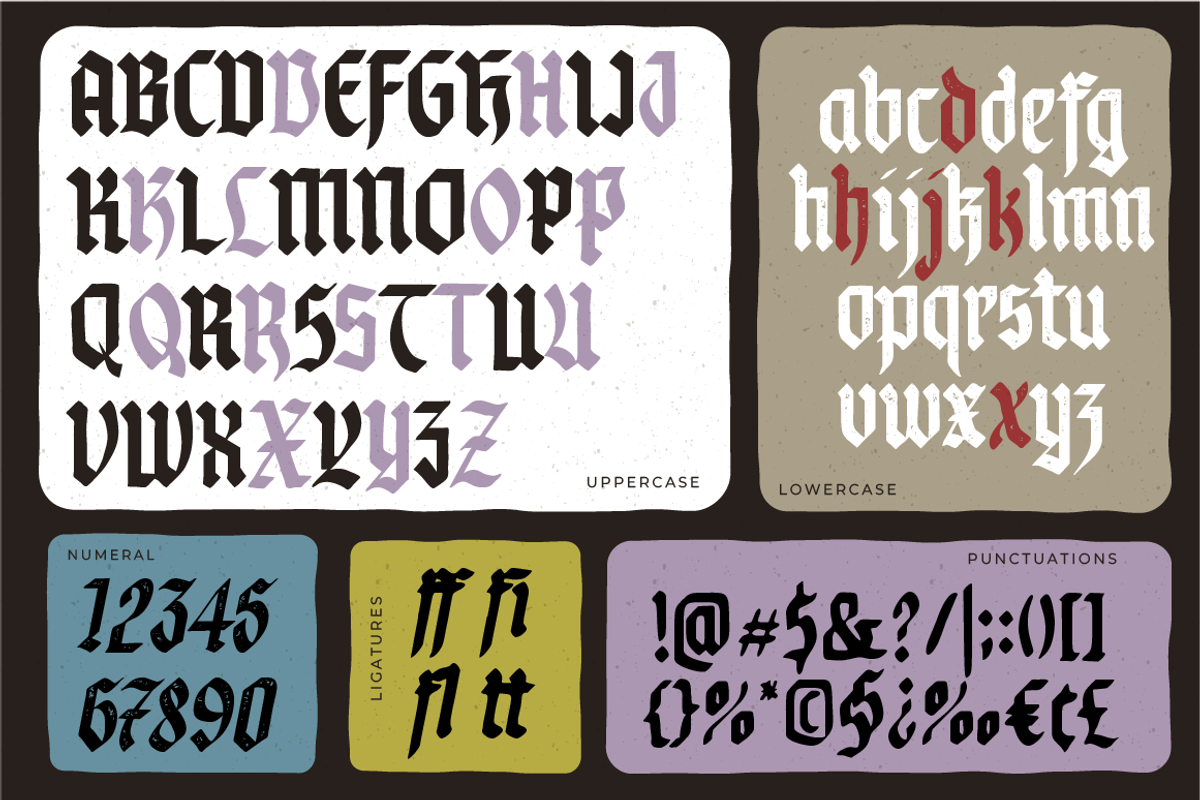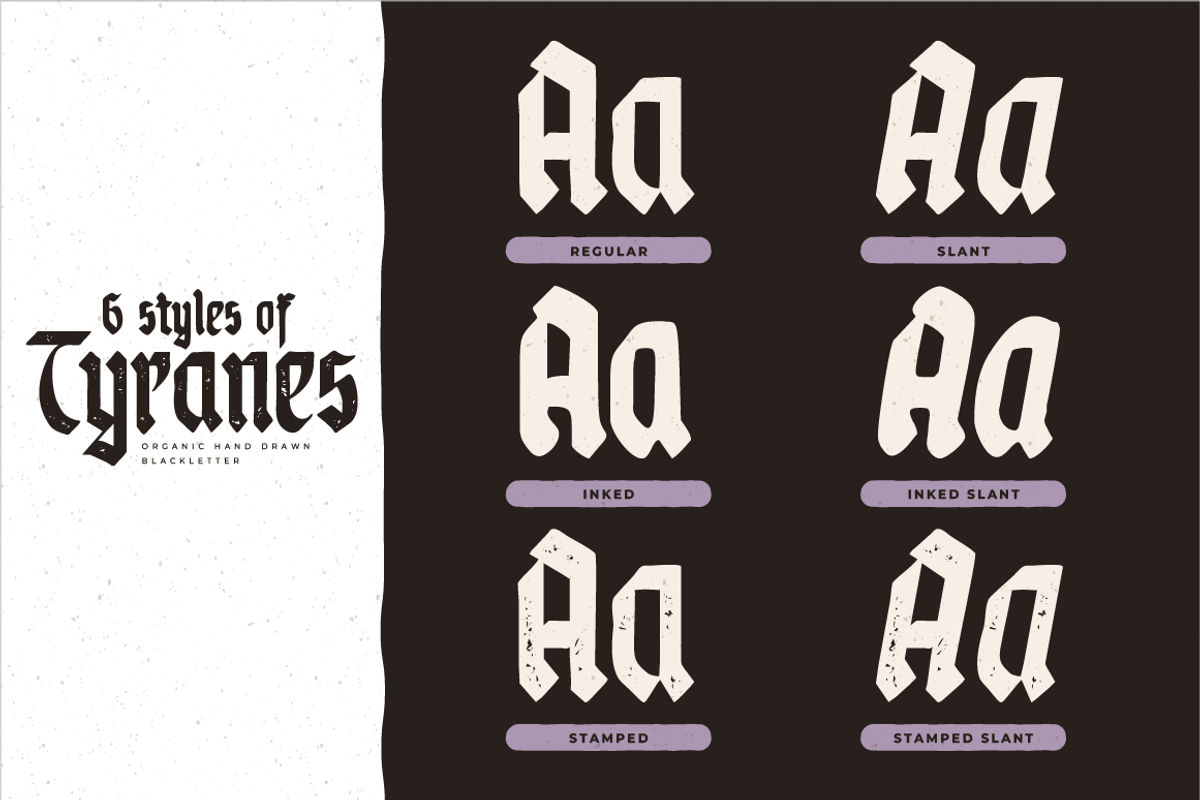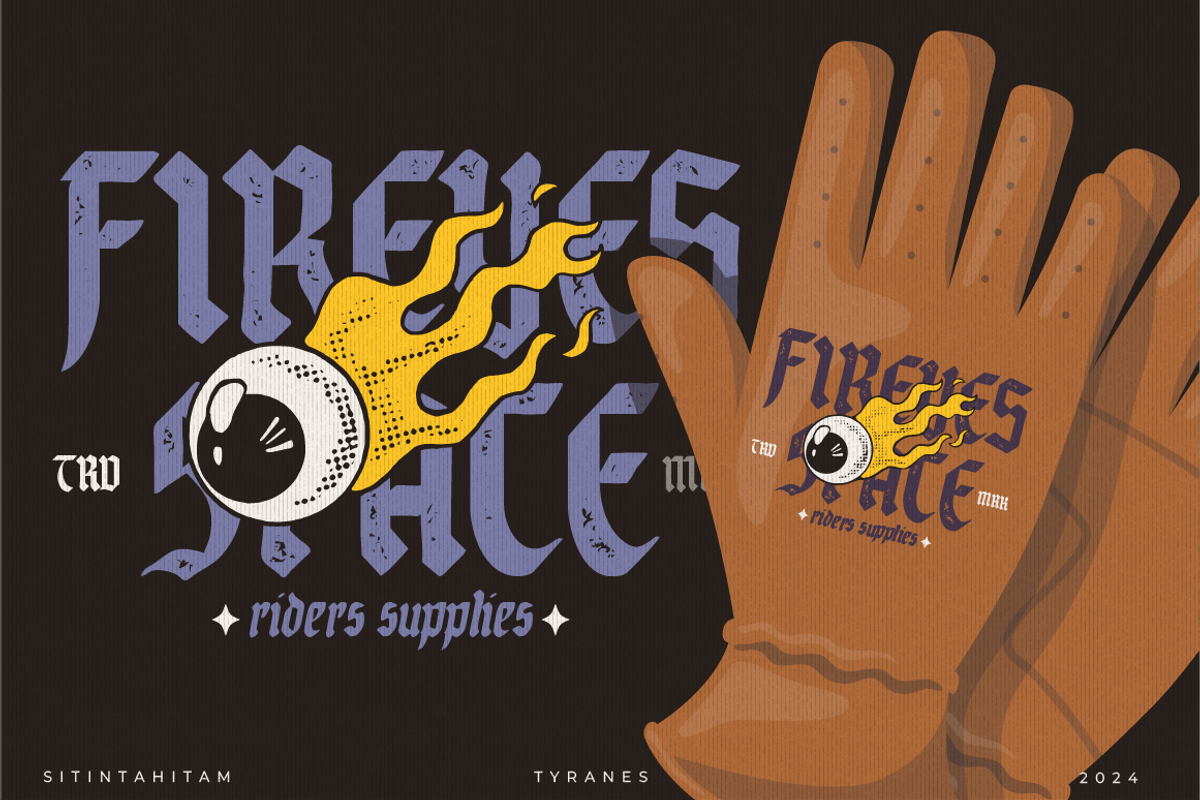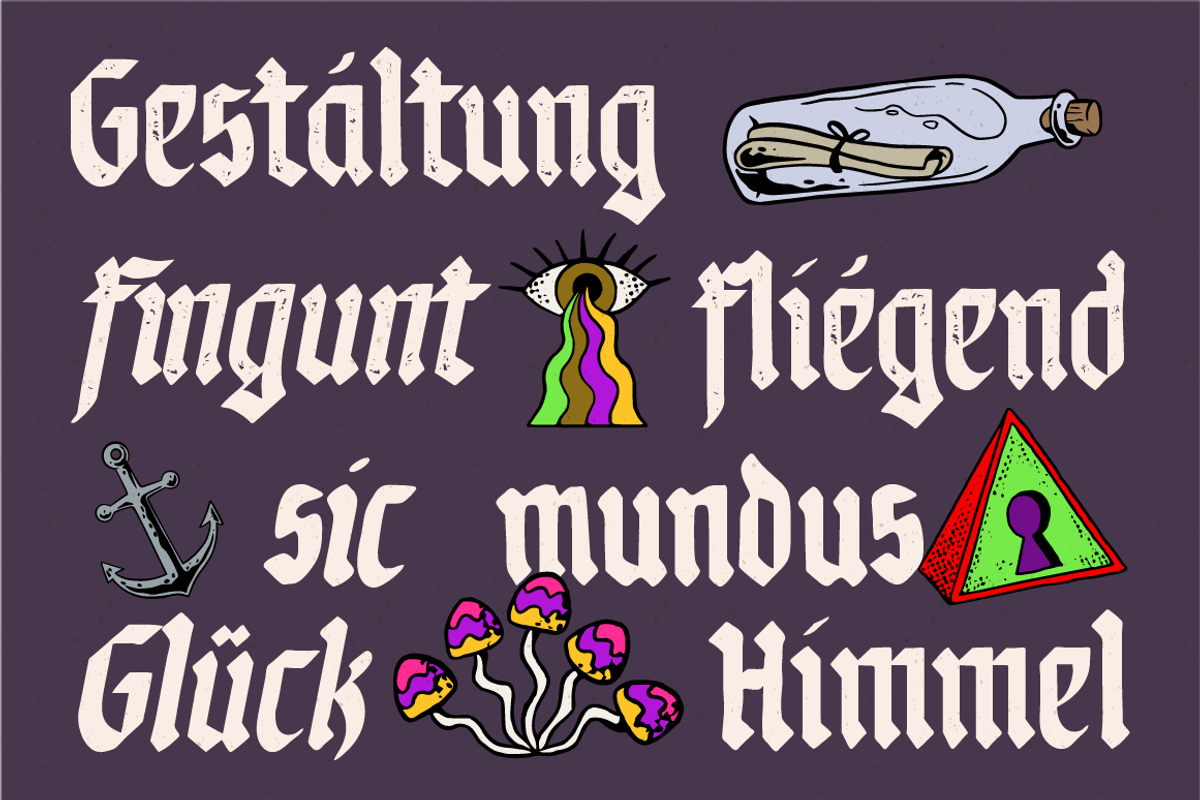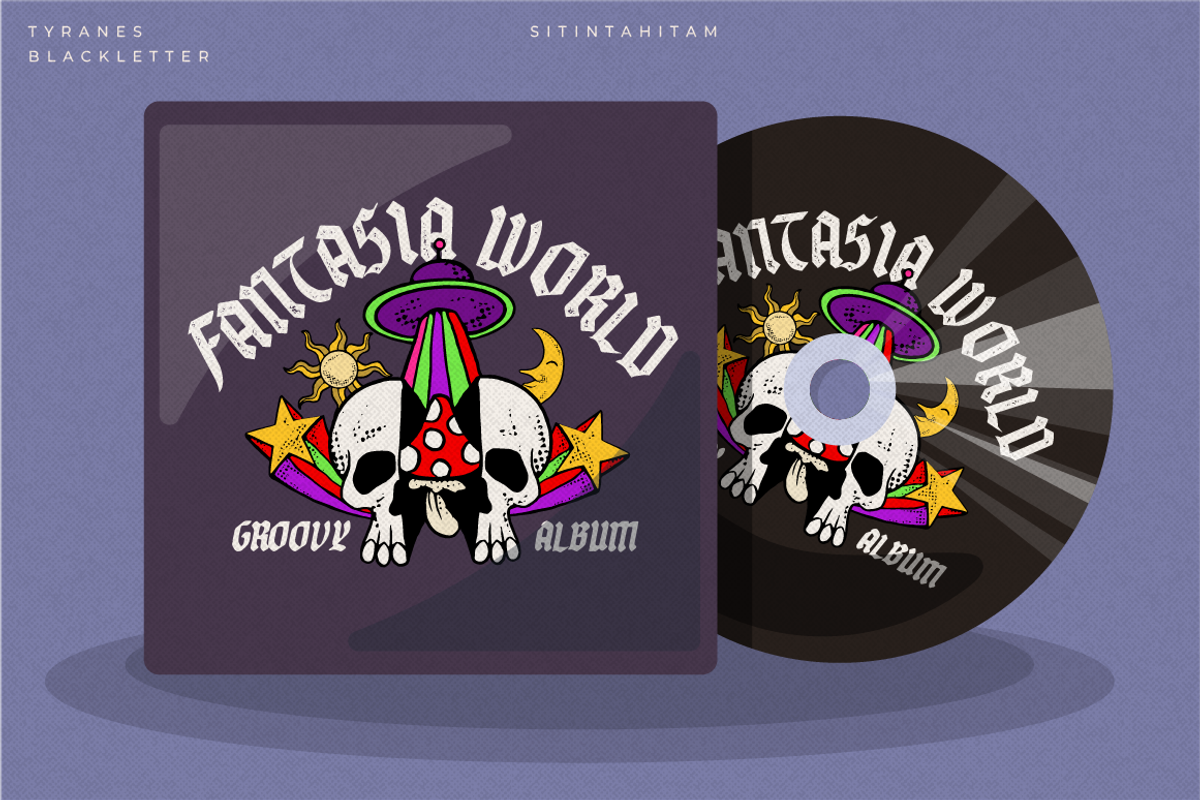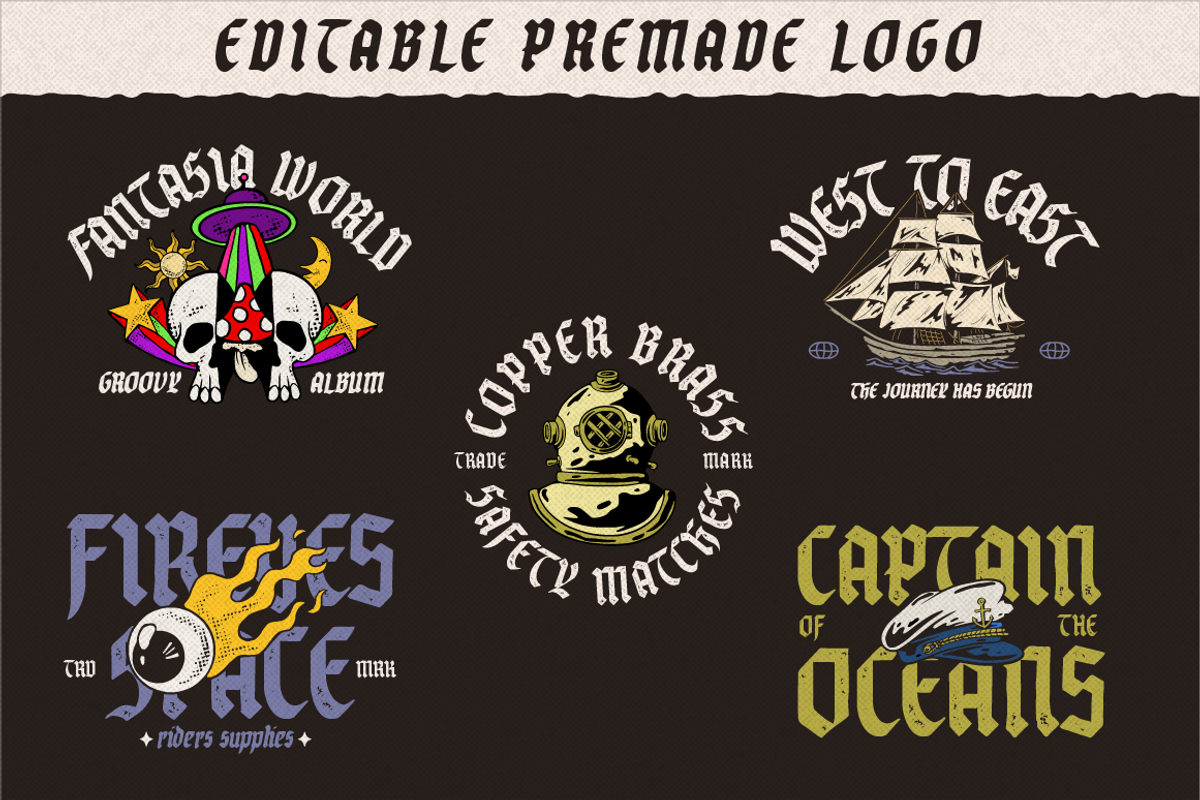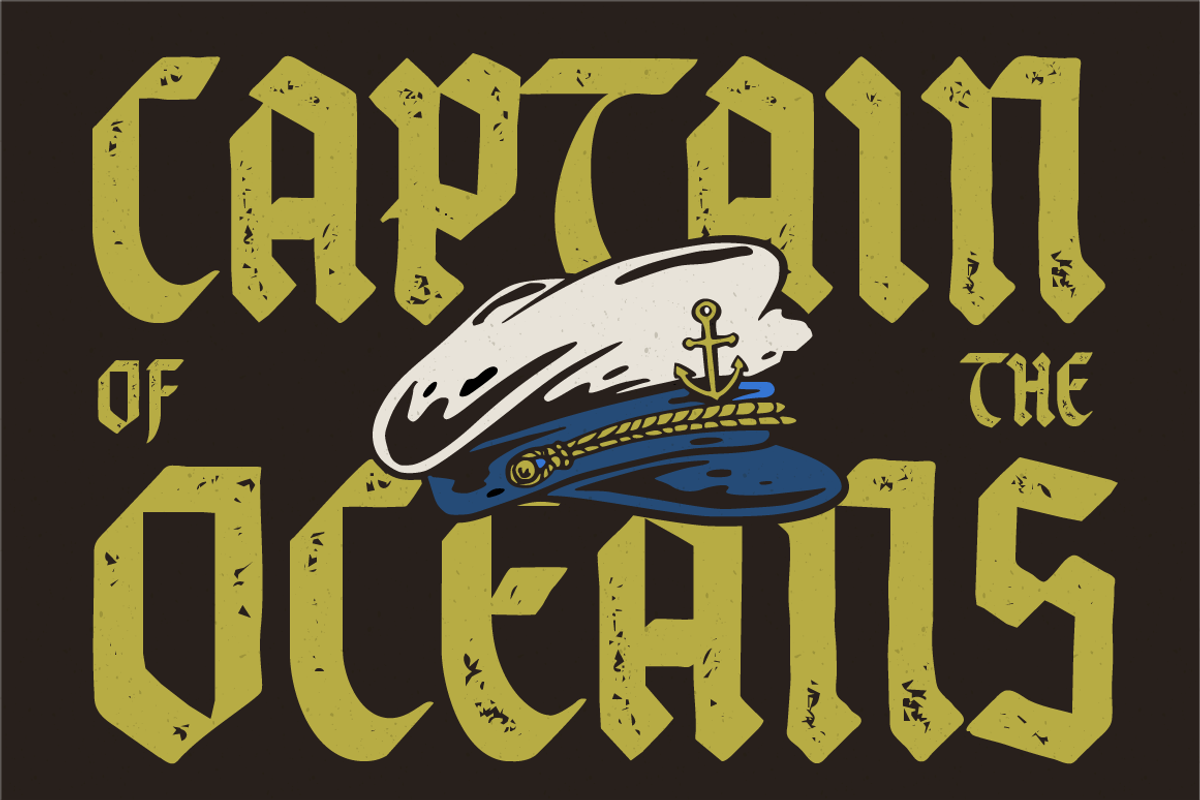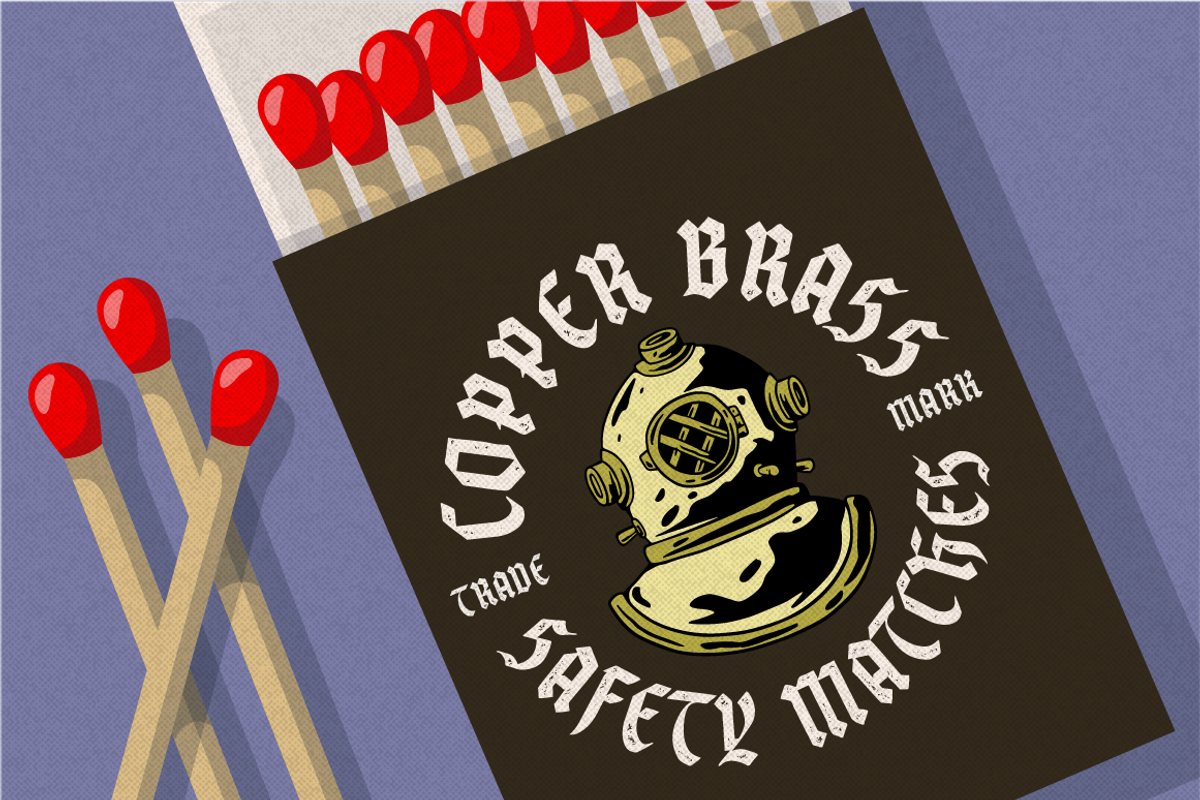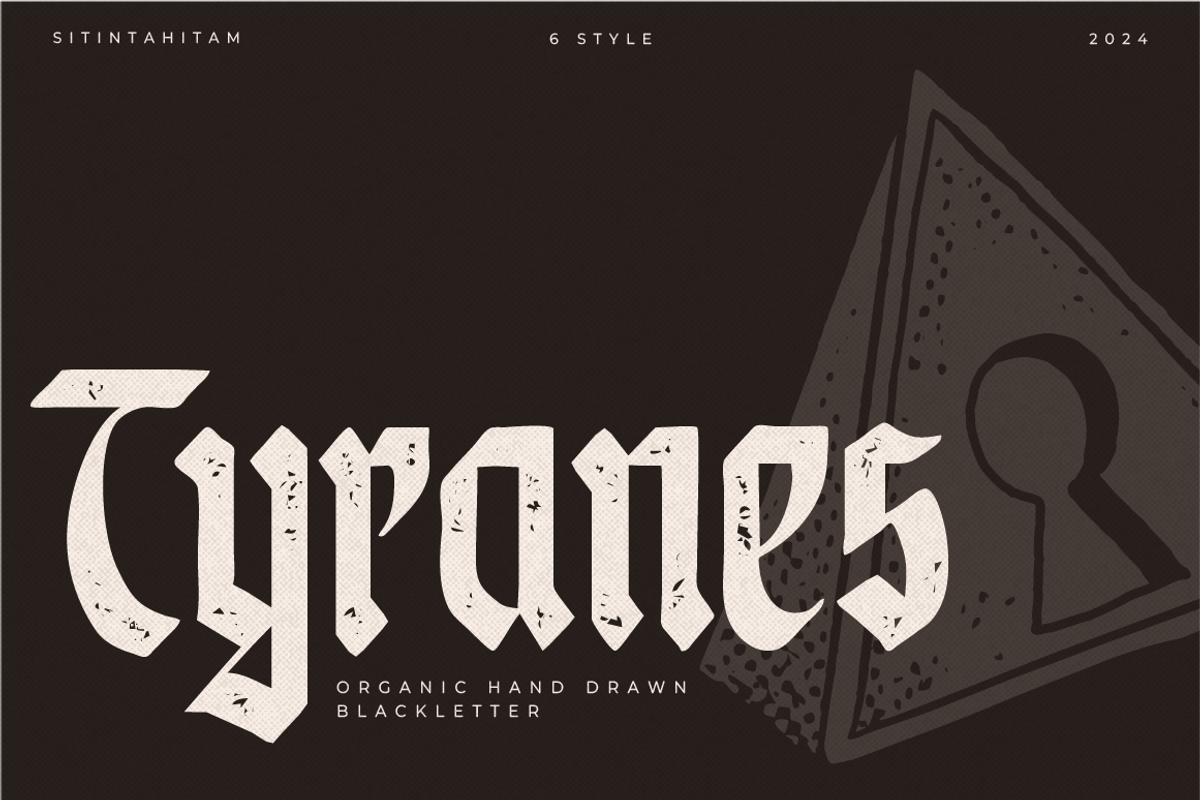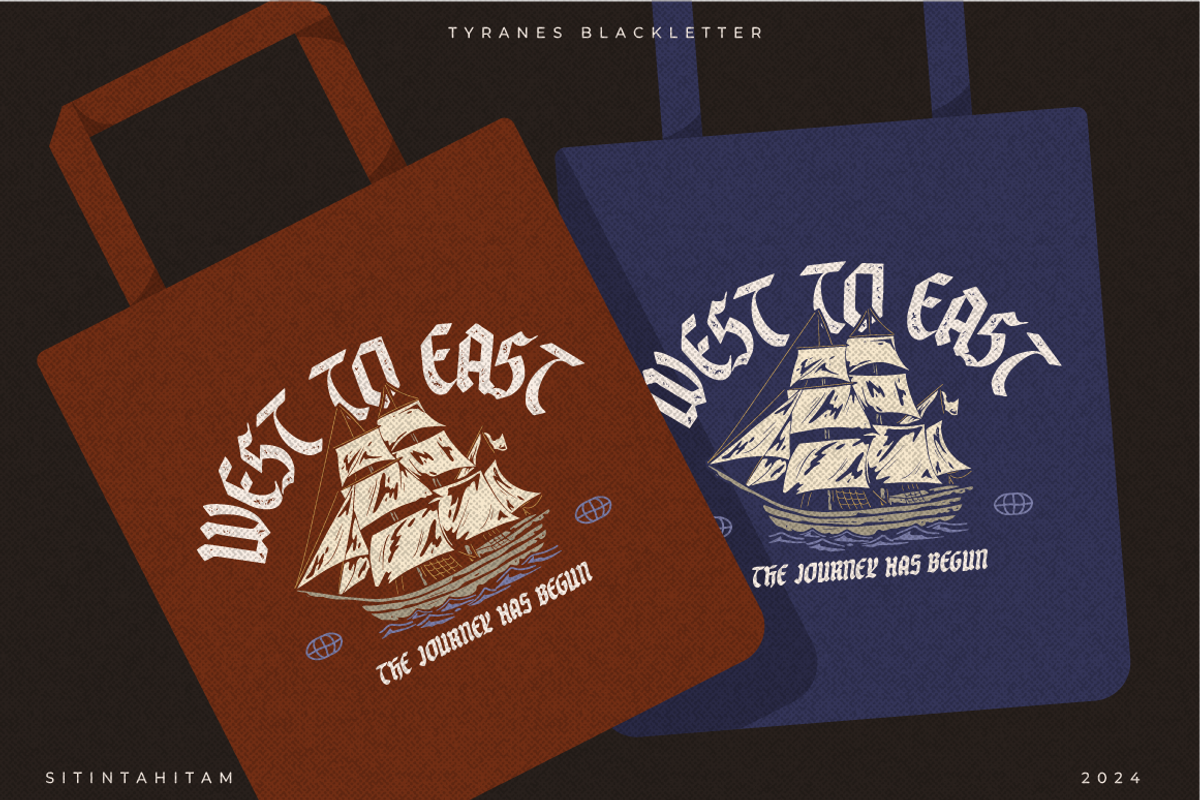
STH Tyranes + Extras
STH Tyranes - Organic Blackletter inspired by vintage Gothic Script in 12 Century. This font comes with 6 styles (regular, slant, inked, inked slant, stamped, stamped slant). FREE EXTRAS Premade Logo and Random Illustrations. Perfect to create vintage logotypes, vintage poster, merchandise, etc.